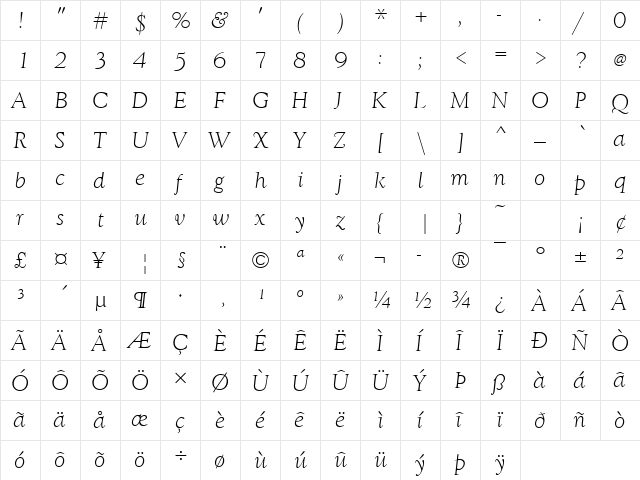
GoudyTLig Italic
Design Context for GoudyTLig Typeface
GoudyTLig offers clean, dependable letterforms without strong stylistic allegiance, making it a practical choice for designers who need flexibility. The slanted form adds forward momentum and visual energy.
Pro Tip: Use GoudyTLig for emphasis, pull quotes, and subheadings where its slanted energy can add rhythm to the layout.